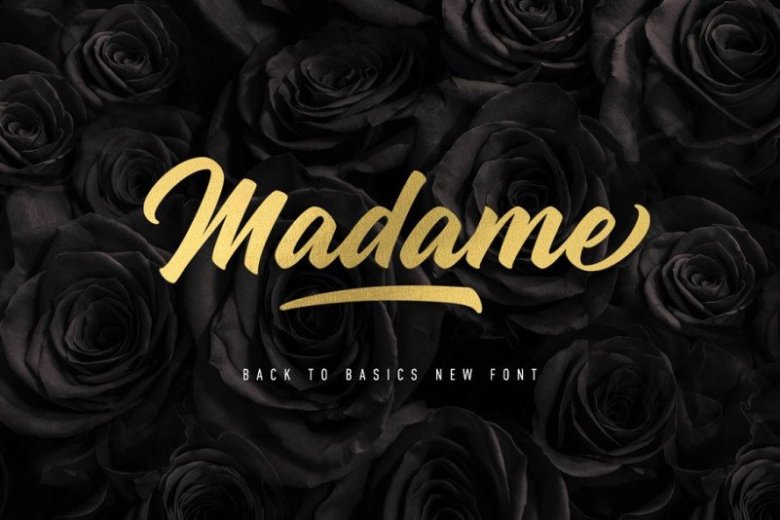
Madame Script Font
Madame Font – This is calligraphy script typeface looks elegant and classy, a font work that is purely handwritten. It’s will give your design works more stylish and artistic. It’s designed and shared by StereoType. Madame Script is perfect for branding projects, logo, wedding designs, social media posts, advertisements, product packaging, product designs, label, photography, watermark, invitation, stationery and any projects that need handwriting taste.